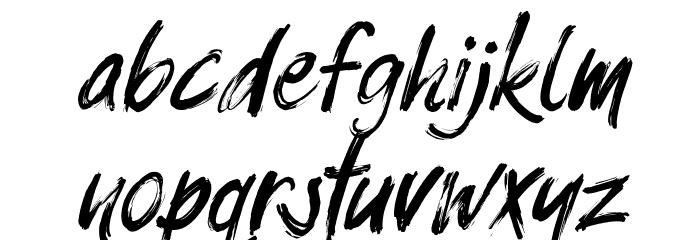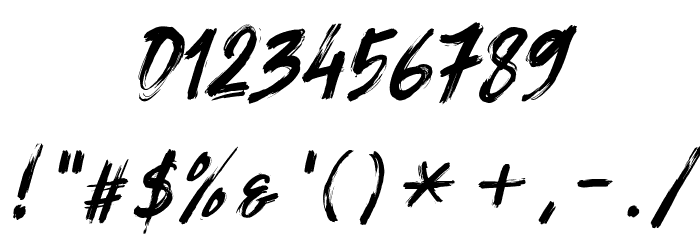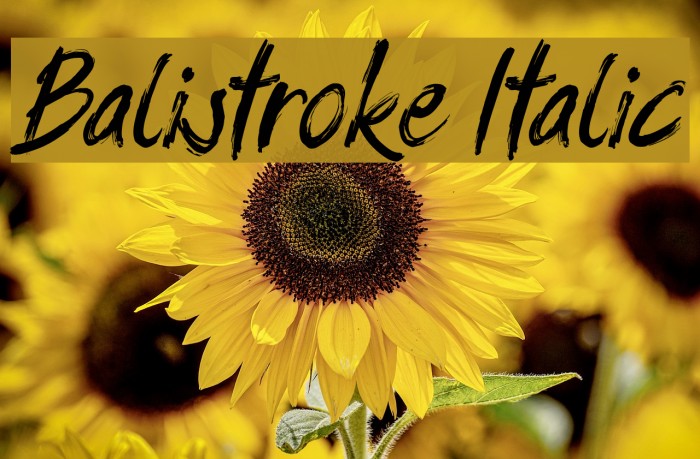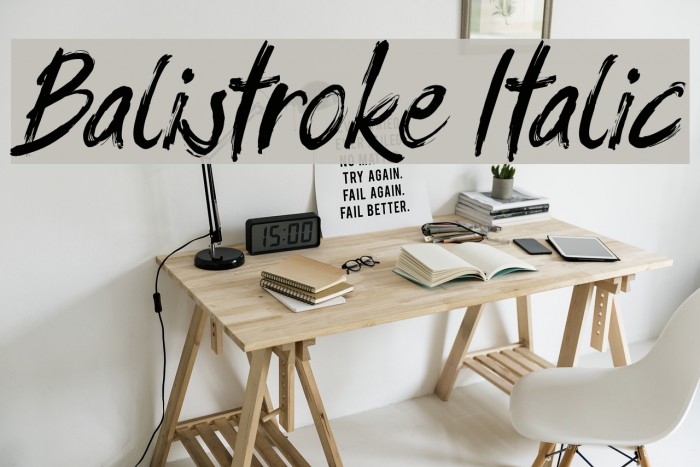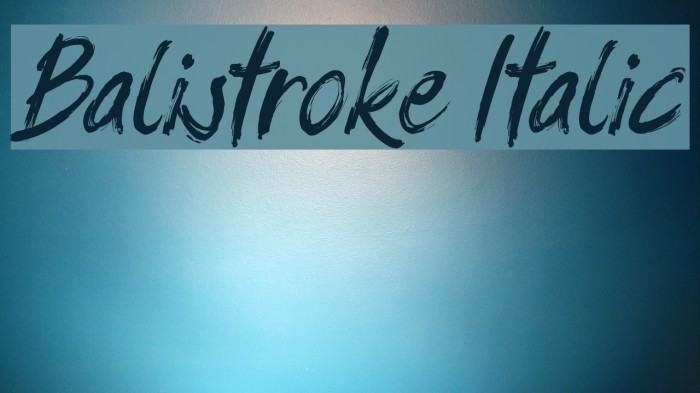
Balistroke Italic Font
This font exudes a dynamic and energetic style, characterized by its bold, brush-like strokes that give it a hand-painted appearance. The letters are slightly slanted, enhancing the italic nature and adding a sense of movement and fluidity. The uppercase and lowercase letters maintain a consistent style, with varying stroke thickness that adds a lively texture. The numbers and special characters are equally expressive, making this font suitable for creative and artistic projects. Its overall appearance is both modern and edgy, perfect for making a bold statement.
A bold, brush-style italic font with dynamic strokes and a hand-painted look.
- Proposed Projects: Ideal for posters, album covers, branding, and any project requiring a bold, artistic touch.